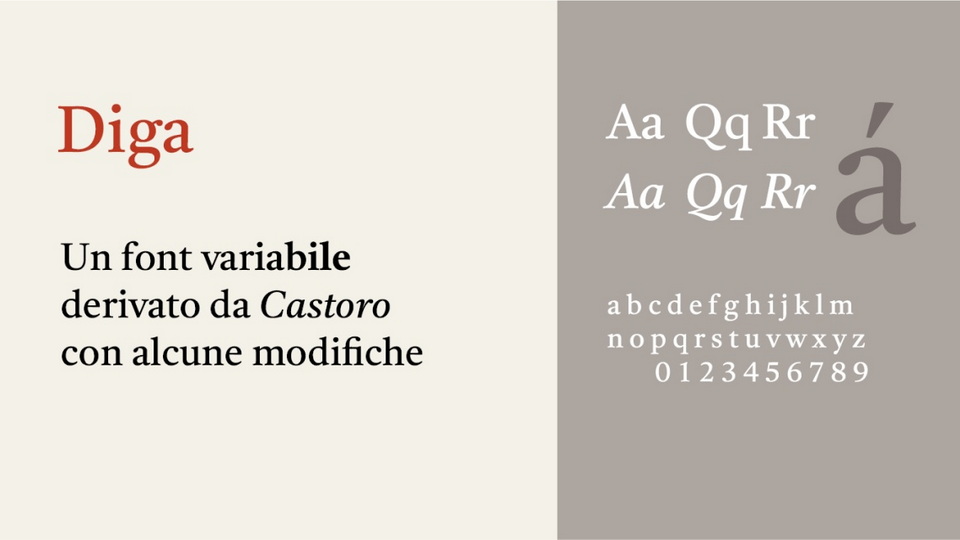
Download Diga font, a refined variable serif typeface inspired by the elegance and versatility of Castoro, designed for both readability and sophistication.